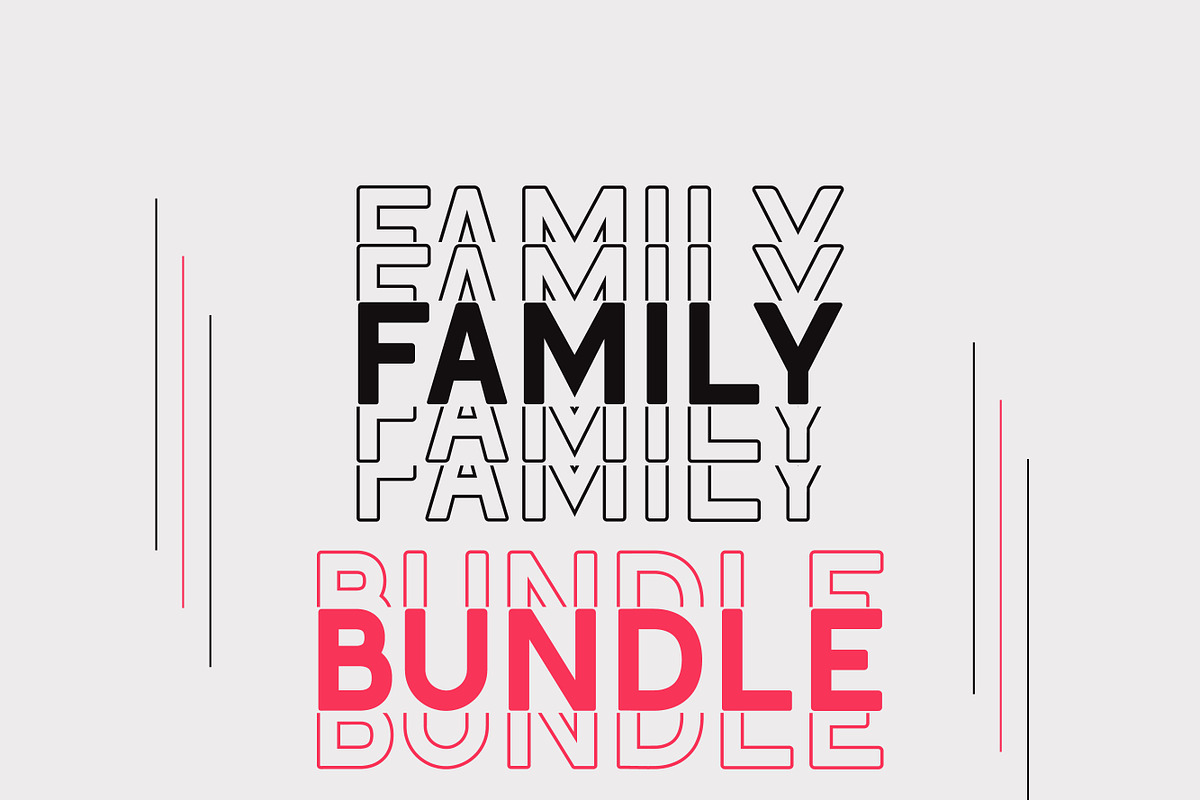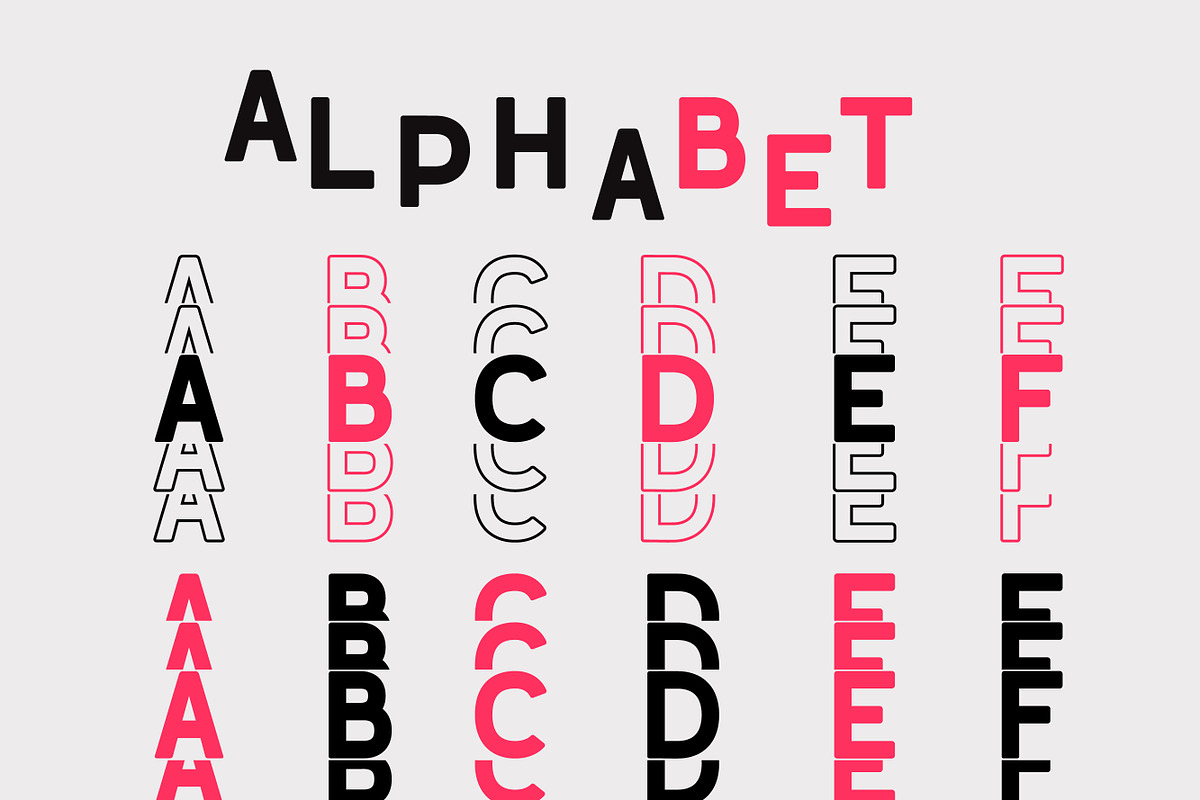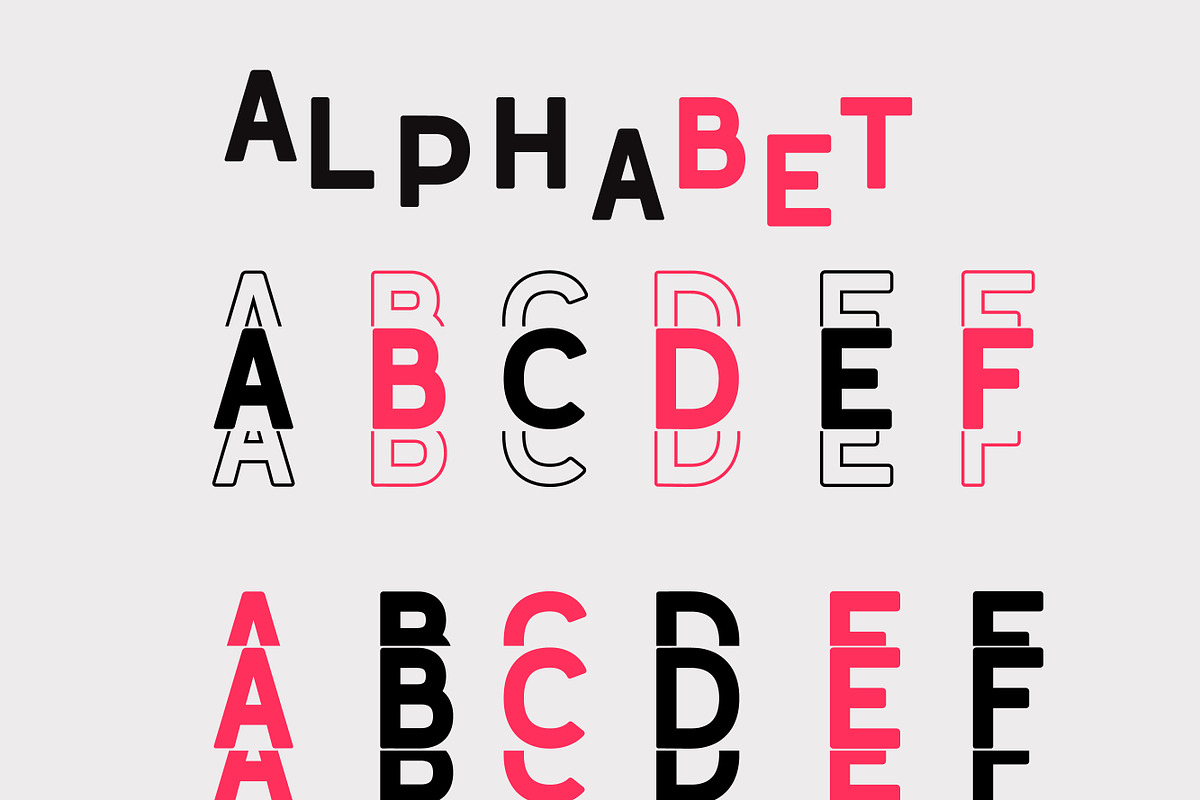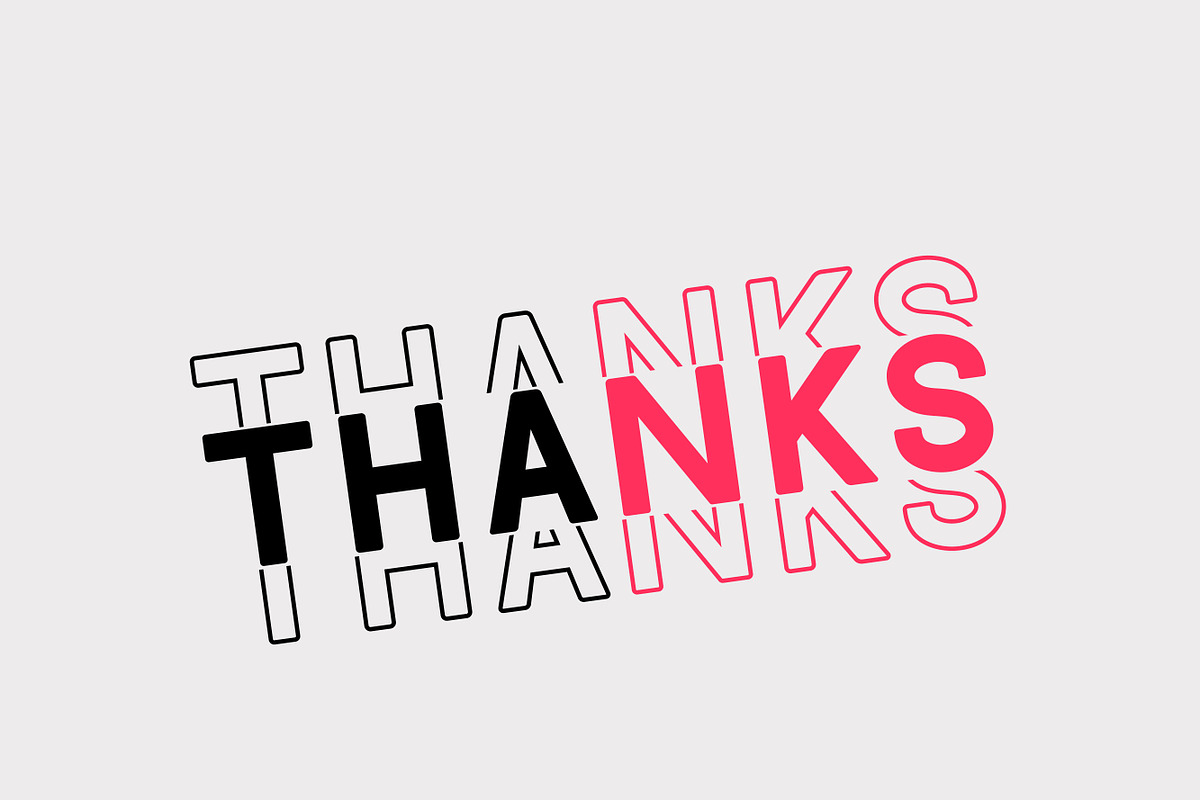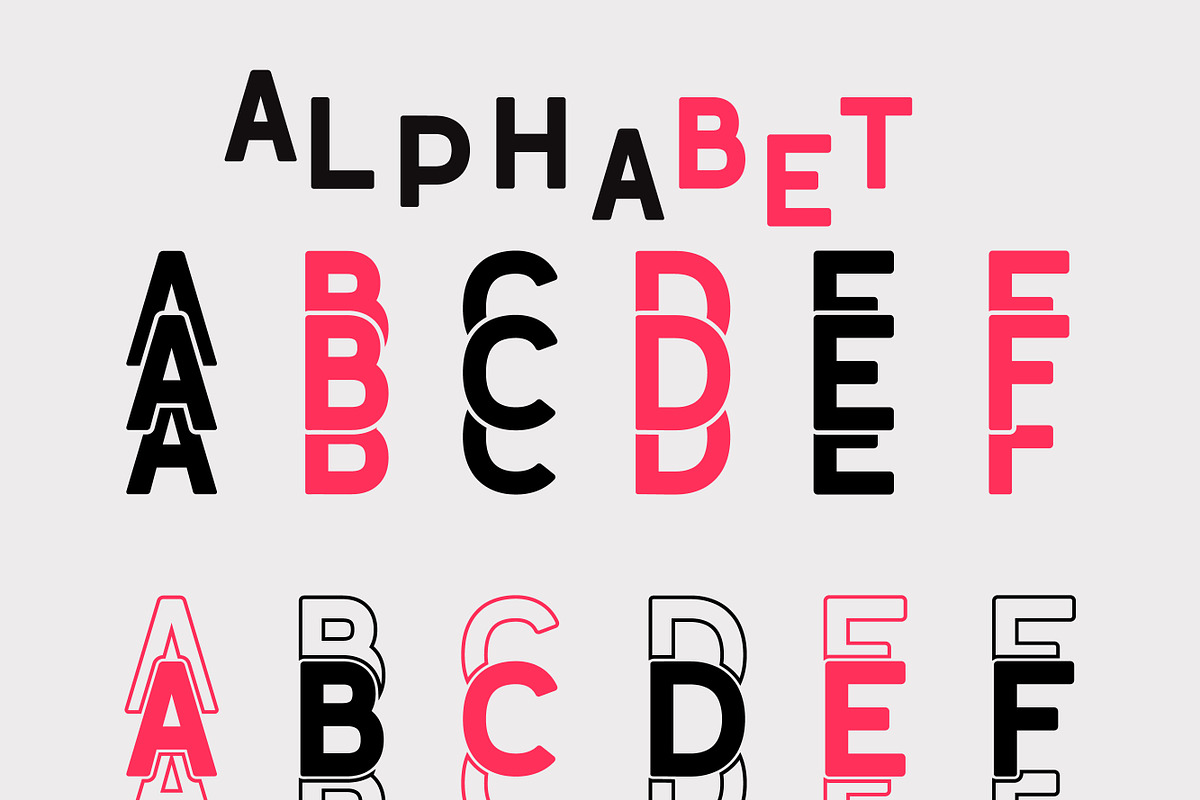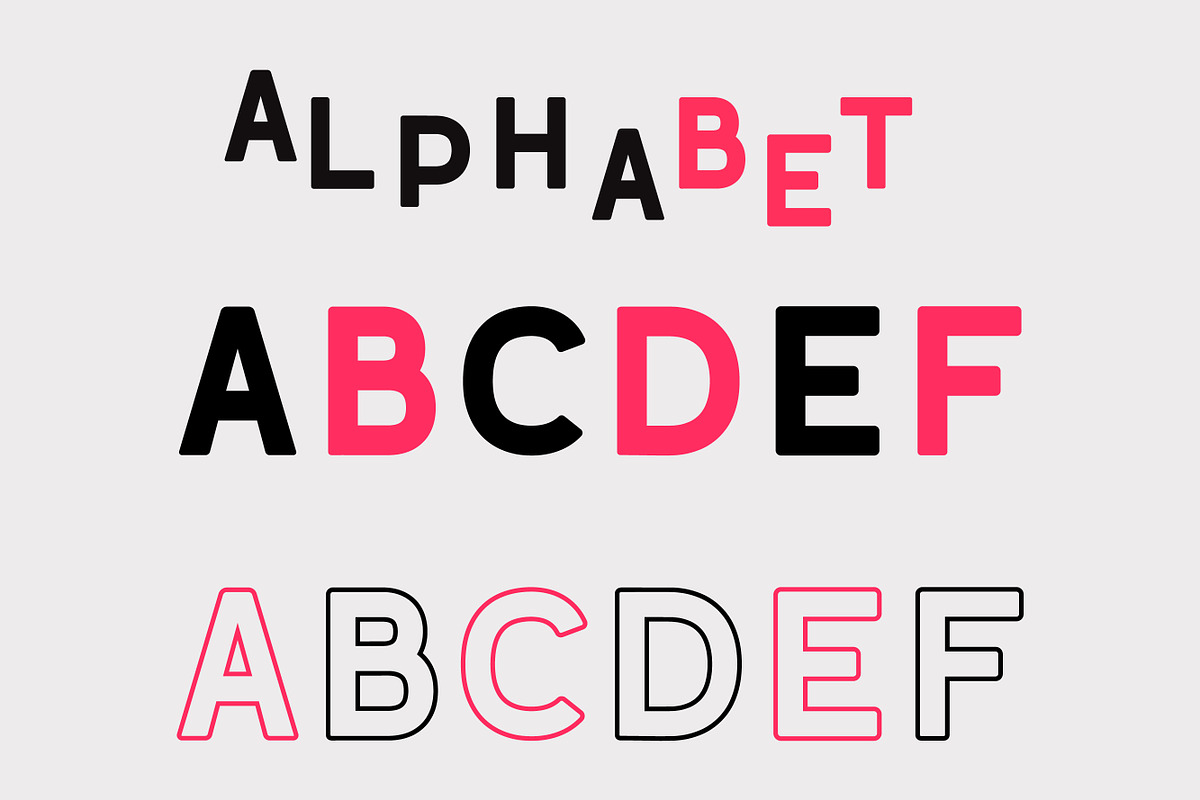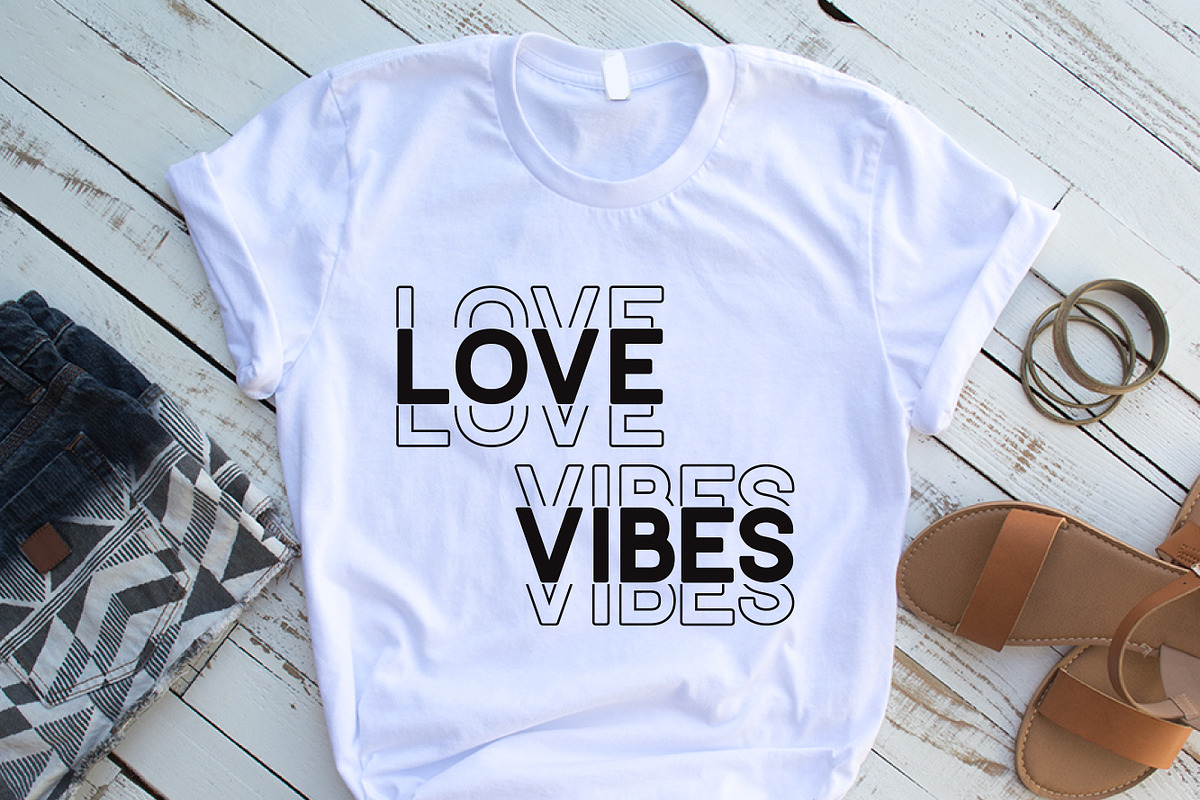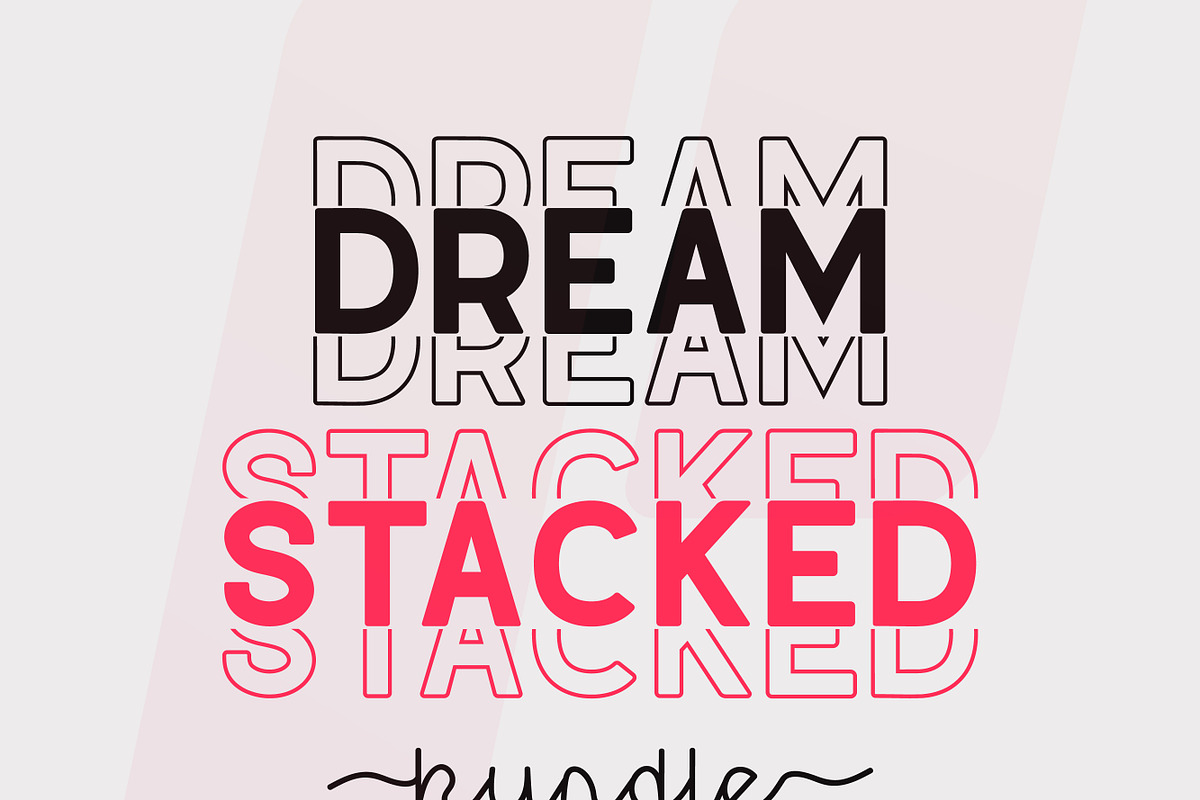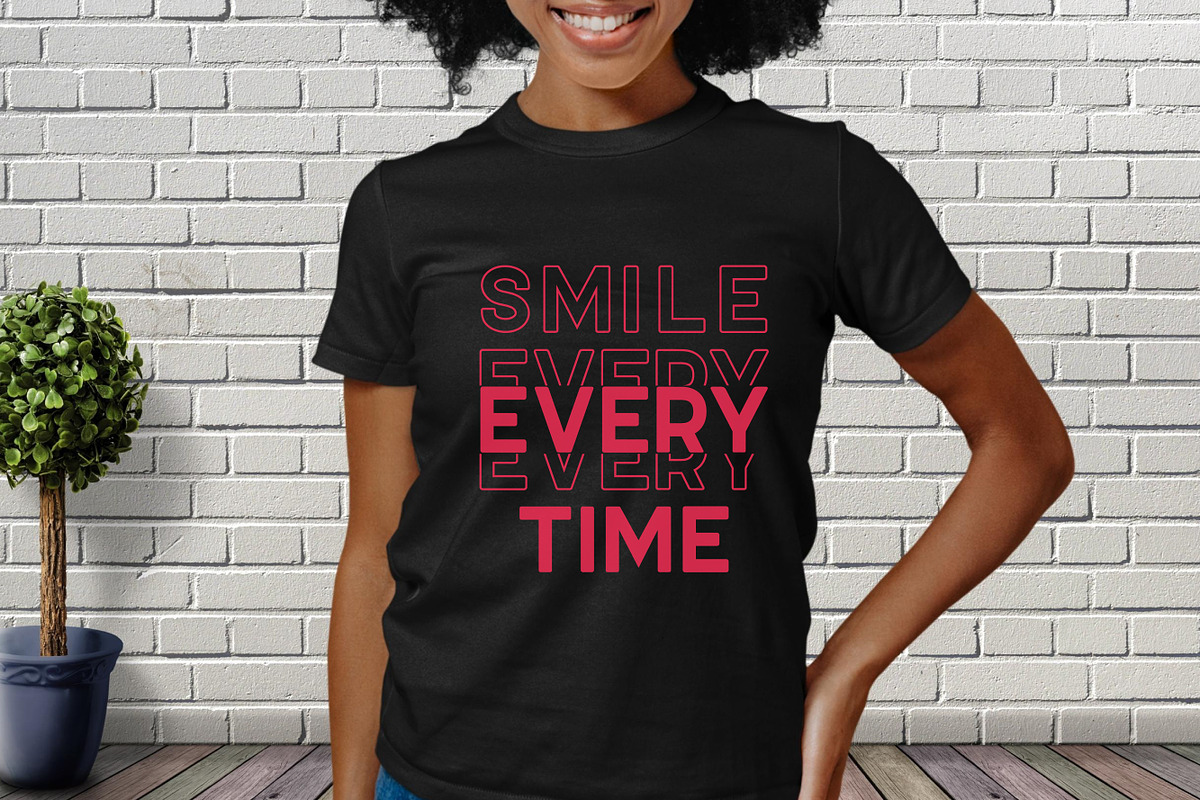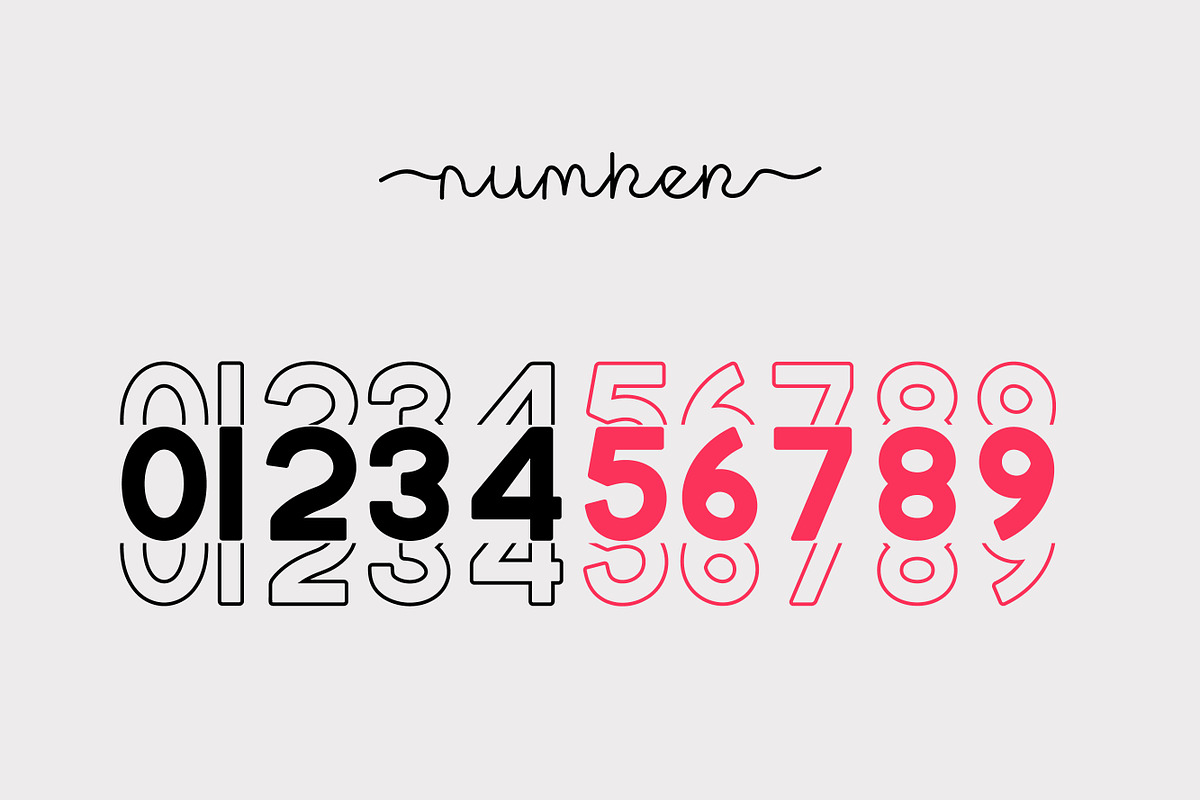
Dream Stacked Cute & Playful Bundle
Dream Stacked is an incredibly cool display font. You create trendy text design. Fun and perfect for everyone because you use it for custom designs, DIY crafts, or just any creation that requires a lovely touch, this font will be an amazing choice and more.